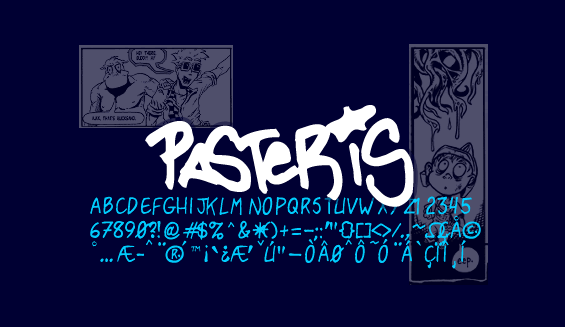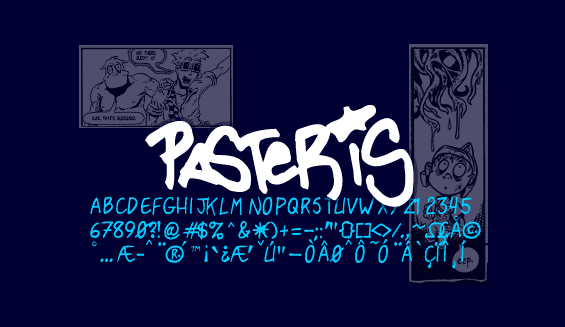
Based on the handwriting of comic book artist Matthew Pasteris. Matthew uses Font-a-licious Fonts in his comic book, Mojo Mechanics. He needed a font to break the industry standards of comic book dialogue. So we put one together with his handwriting. Check out Syndicate Publishing website to see his comic books.